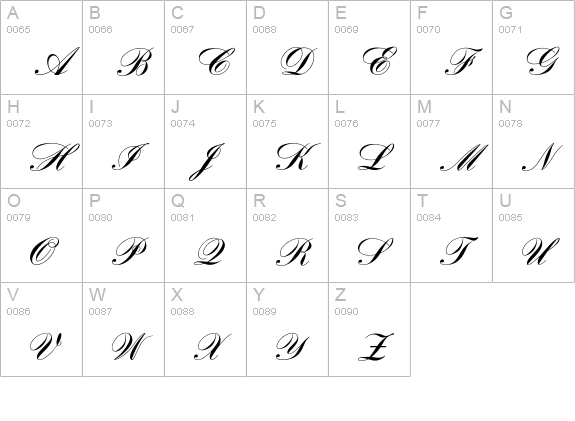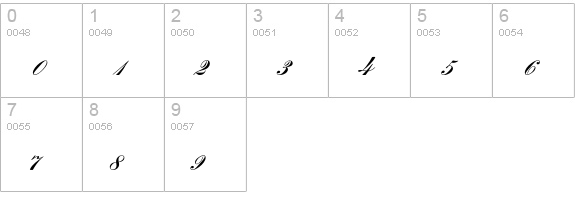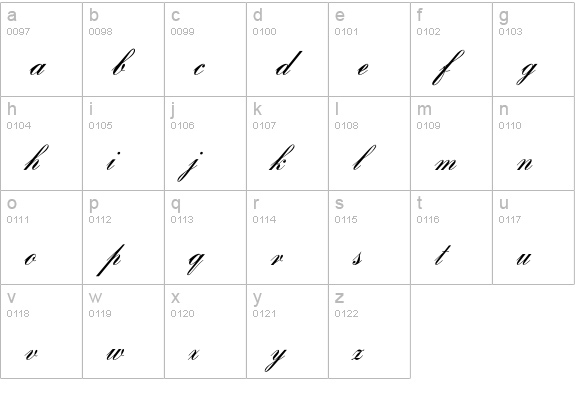
OPTIBank-Script Font Details
Introducing OPTIBank-Script font, a versatile and elegant typeface perfect for adding a touch of sophistication to your projects. This script font features fluid and graceful letterforms that flow seamlessly across the page, giving your designs a professional and polished look. With its classic yet modern appeal, OPTIBank-Script is ideal for a wide range of applications, from branding and advertising to invitations and packaging. The best part? OPTIBank-Script is available for free download at FontsMarket.com! This means you can easily access this beautiful font and enhance your designs without breaking the bank. Whether you're a seasoned designer or just starting out, OPTIBank-Script offers a timeless and stylish option that will elevate your work to the next level. Don't miss out on the opportunity to add OPTIBank-Script to your font collection today. Download it for free at FontsMarket.com and start creating stunning designs that are sure to impress.